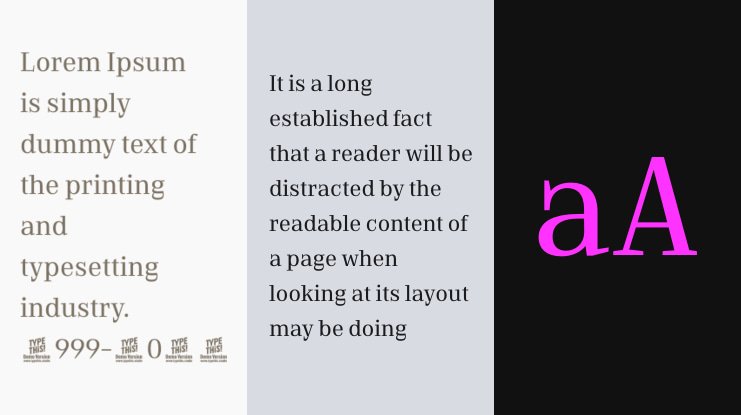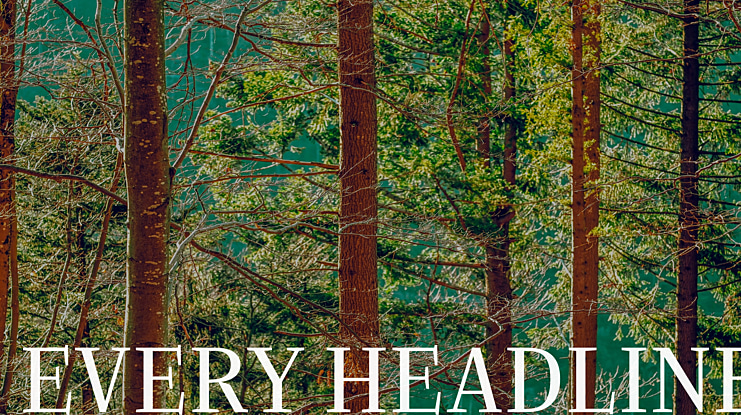
EVERY HEADLINE Font Family
Anita Jürgeleit
'Every Headline' is a new strong and elegant serif font, that will bring an outstanding character to your project.